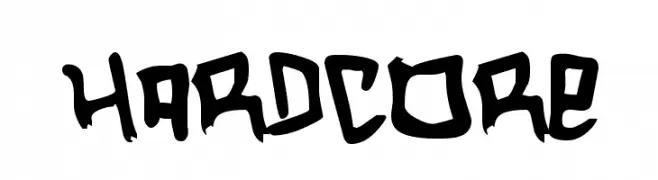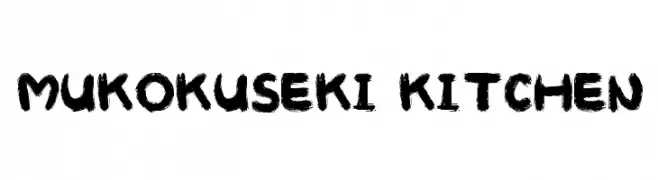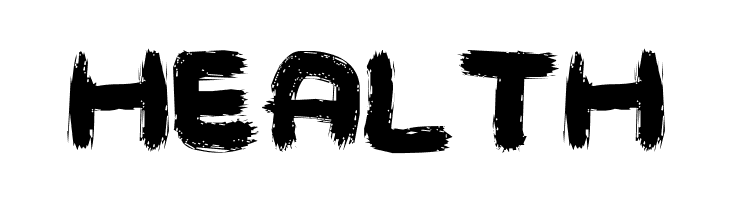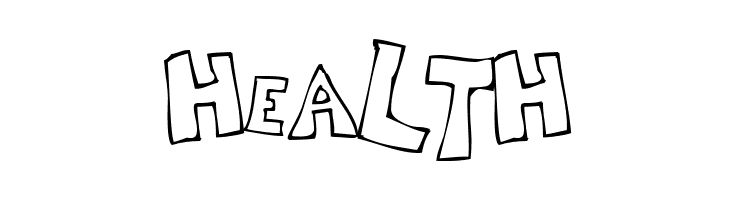
A bold, dynamic font with a slight slant, perfect for energetic designs.
A dynamic handwritten font with fluid, irregular strokes and a playful aesthetic.
A bold, hexagon-framed font with a futuristic and industrial style.
A futuristic, bold font with geometric and angular shapes, ideal for tech-inspired designs.
A bold, graffiti-inspired font with sharp, angular lines and an energetic style.
A bold, brushstroke font with a textured, hand-painted look.
An intricate, entangled font with geometric, maze-like patterns.